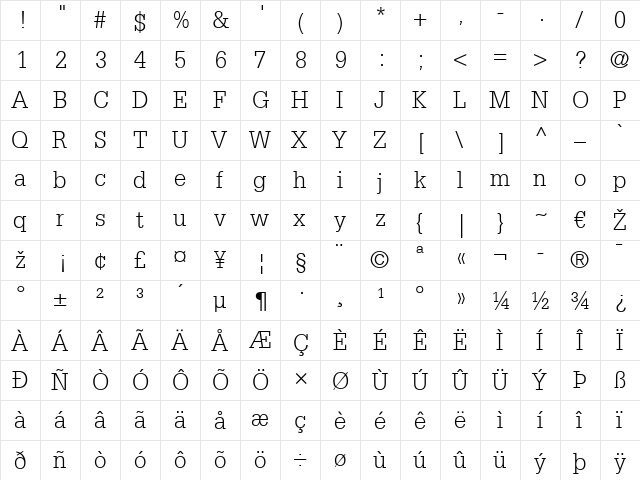
Glypha LT Light Regular
| Designer | Adrian Frutiger |
Design Context for Glypha LT Light Typeface
Glypha LT Light takes a measured approach to typography — its balanced proportions and neutral character make it a reliable workhorse for both digital and print work. Its slender proportions lend an understated elegance to any composition.